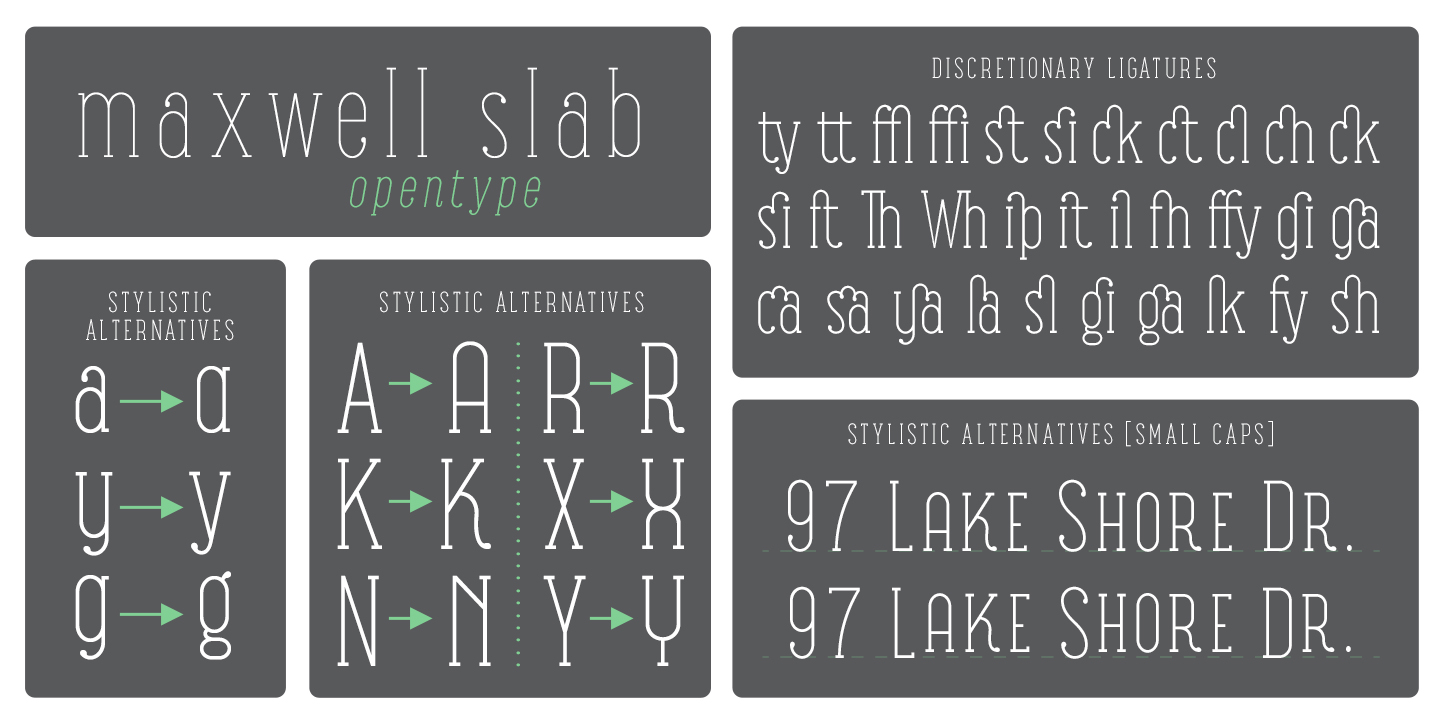
Maxwell Slab is a clean condensed slab serif typeface. It comes in regular and small caps versions, includes custom italics, stylistic alternatives, letter style variations, discretionary ligatures and multiple languages; Cyrillic, Greek, Latin and other Western and Central European languages and works either as a headline font or paragraph text.